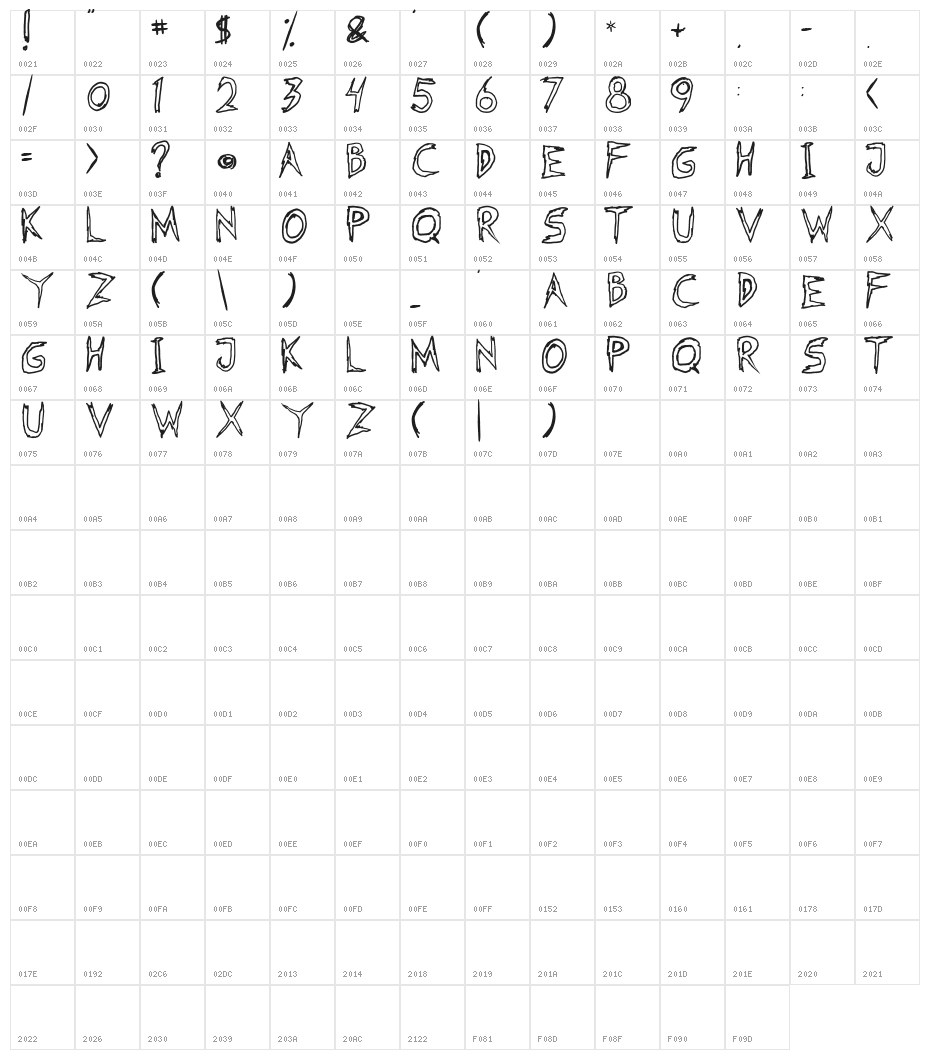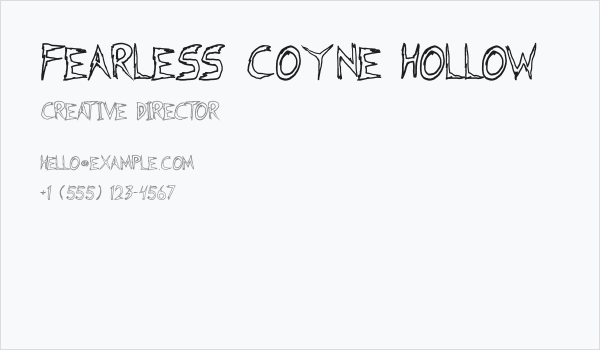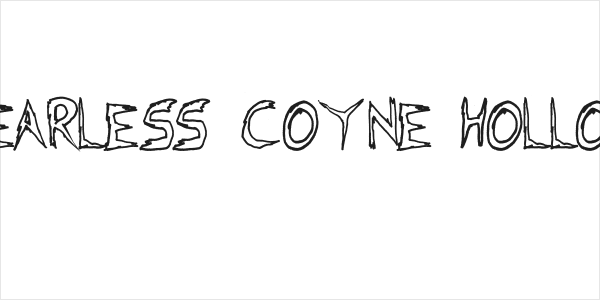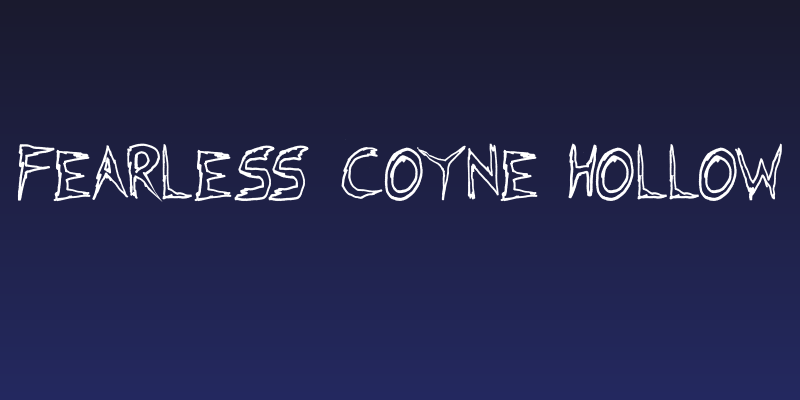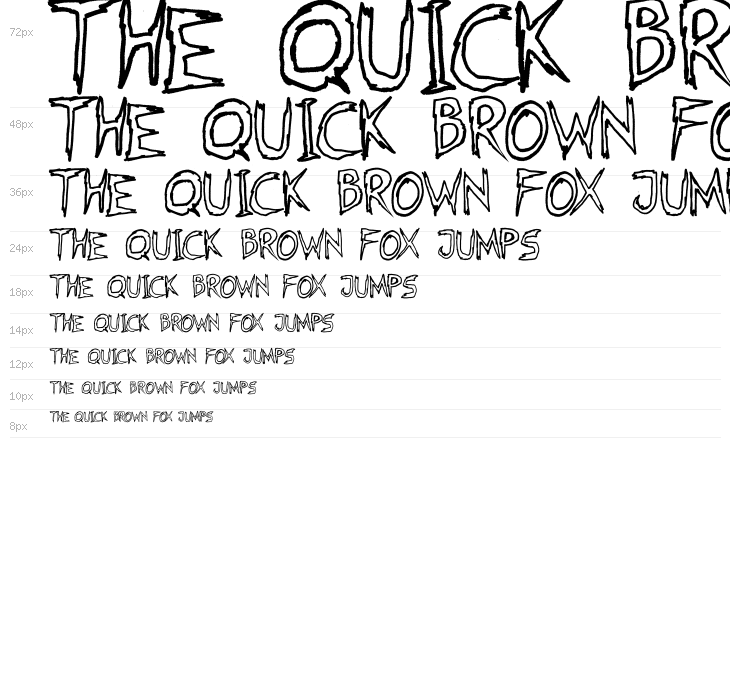
Fearless Coyne Hollow Font
Fearless Coyne Hollow Description
This font features a bold, hand-drawn style with a rugged and edgy appearance. The characters are irregular and dynamic, giving a sense of movement and energy. The uppercase and lowercase letters maintain a consistent style, with sharp angles and uneven lines that add to its unique character. The numbers and special characters follow the same aesthetic, making it a cohesive set. This font is ideal for projects that require a bold and unconventional look, such as posters, album covers, or branding for edgy or artistic ventures.
| Proposed Projects | Ideal for posters, album covers, and artistic branding. |